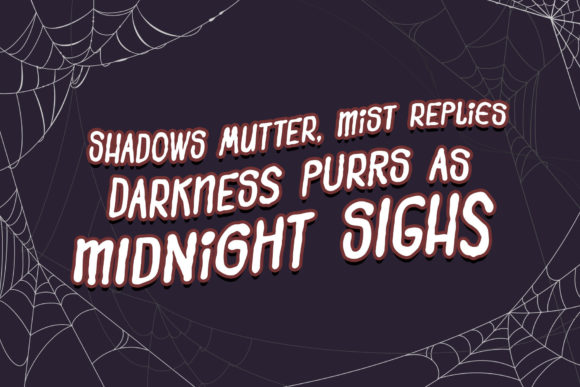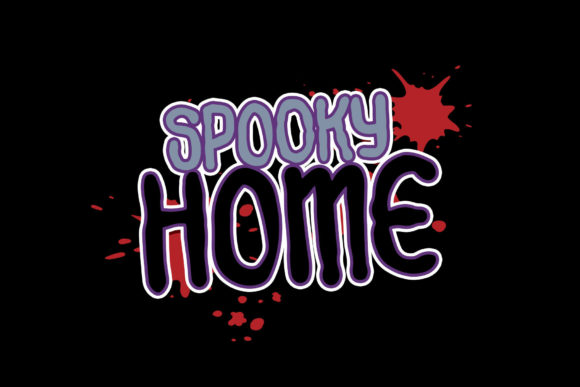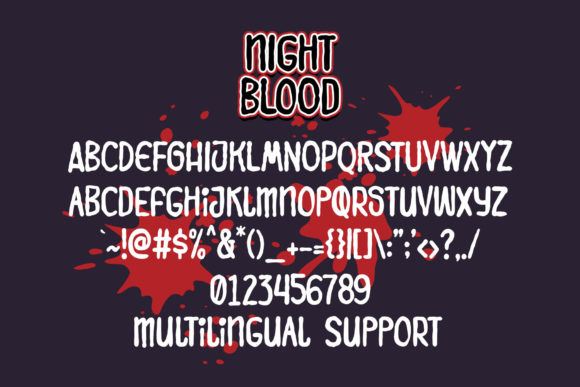
Introduction to Night Blood Font
Night Blood is a spooky and cool display font.
Night Blood Font offers exceptional quality and versatility, making it a valuable addition to your design toolkit. Whether you’re creating for personal projects or commercial use, Night Blood Font delivers professional results.